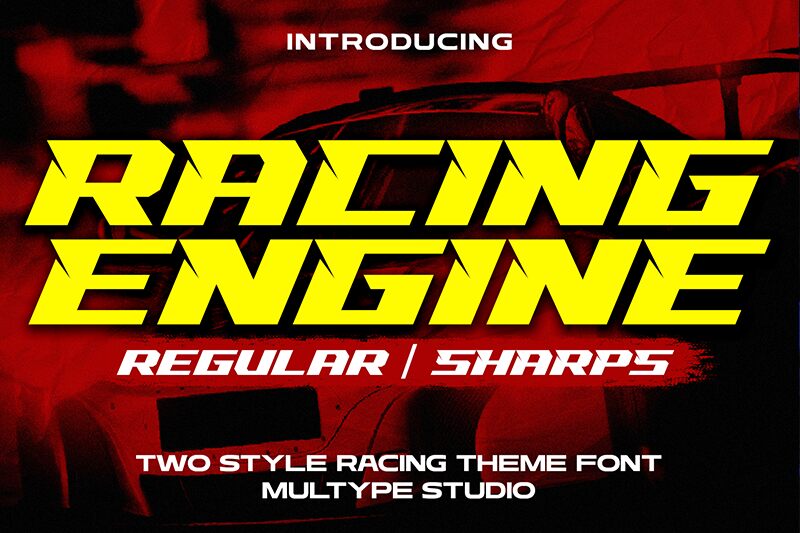
Racing Engine Sharps
Racing Engine Sharps font by Multype Studio is a modern, energetic, futuristic display typeface. It has an angular and expanded form that captures the action of fast-paced scenes. The bold letters are sleek and clean in appearance which perfectly fits modern designs. Use this free font to design compelling titles and catchy logos for all types of projects.
Think book covers, posters, invitation cards, packaging labels, flyers, greeting cards, T-shirt prints typography to showcase on social media platforms like Instagram. Imagine Racing Engine Sharp’s letters making your brands more distinguishable to the public when adding them to logos and general branding material.